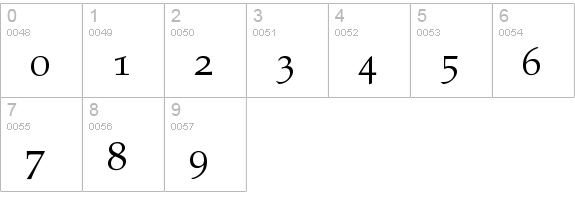
Palatino Small Caps & Old Style Figures Font Details
Palatino Small Caps & Old Style Figures font is a timeless and elegant typeface that combines the sophistication of small caps with the classic charm of old style figures. This font is perfect for adding a touch of sophistication to any design project, whether it's a logo, print materials, or web design. With its clean lines and graceful curves, Palatino Small Caps & Old Style Figures font exudes a sense of refinement and class. The small caps add a touch of emphasis and distinction to the text, while the old style figures bring a sense of traditional elegance. One of the best features of Palatino Small Caps & Old Style Figures font is that it is freely available to download at FontsMarket.com. This means that you can easily access and use this beautiful font in your projects without any cost. Whether you are a professional designer or a hobbyist, this font offers a great opportunity to enhance your work with a high-quality typeface. Whether you want to create a sophisticated logo for a luxury brand, design an elegant invitation for a special event, or craft a stunning website with a classic touch, Palatino Small Caps & Old Style Figures font is the perfect choice. Its versatility and timeless appeal make it a valuable addition to any designer's toolkit. So why wait? Go ahead and download Palatino Small Caps & Old Style Figures font for free at FontsMarket.com, and elevate your design projects to new heights of elegance and style.